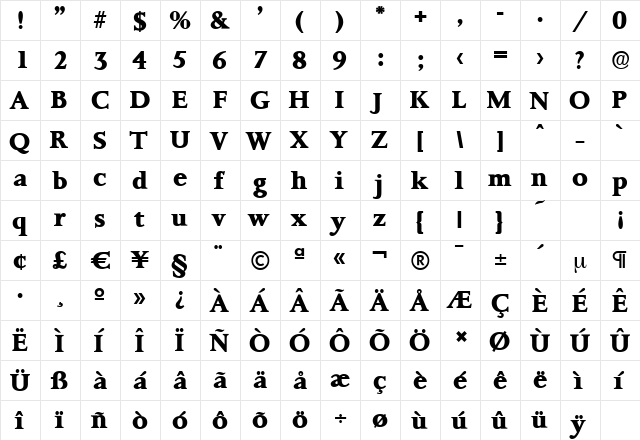
PalermoSerial-Xbold Regular
Design Context for PalermoSerial-Xbold Typeface
PalermoSerial-Xbold offers clean, dependable letterforms without strong stylistic allegiance, making it a practical choice for designers who need flexibility. The heavy weight commands attention and anchors typographic hierarchies.